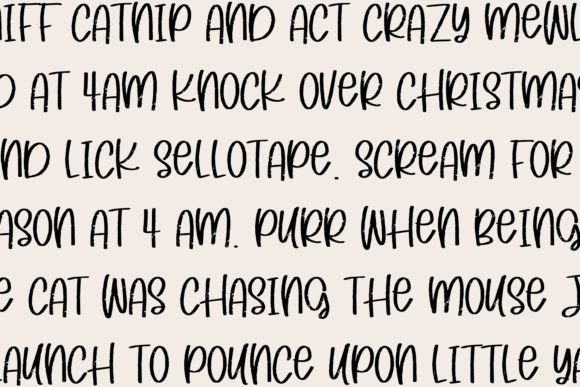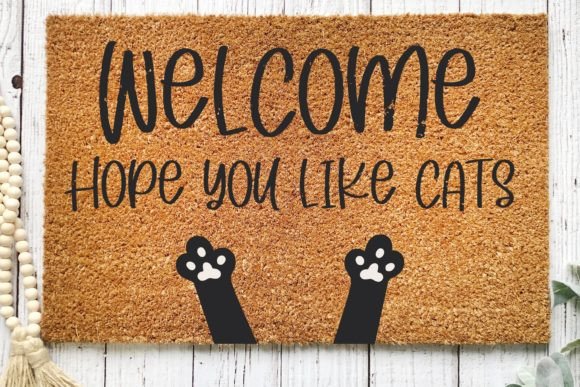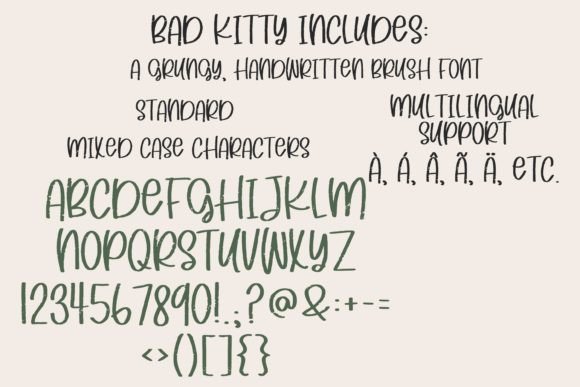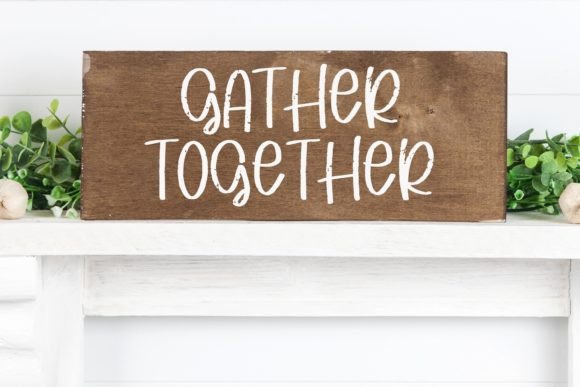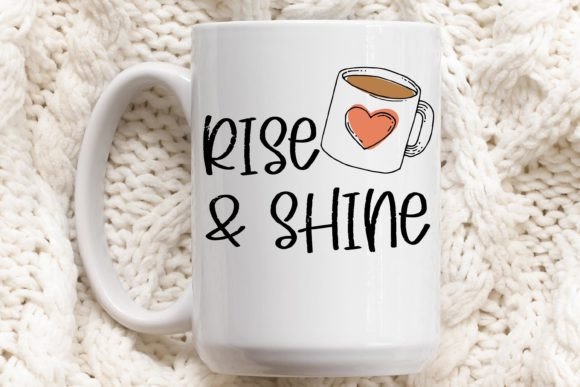
About Bad Kitty Font
Bad Kitty is a fun, scratchy mixed-case handwritten brush font. This friendly font is perfect for fun logos, greeting cards, t-shirt designs, stickers, social media, and any craft or project for that hand-made look.